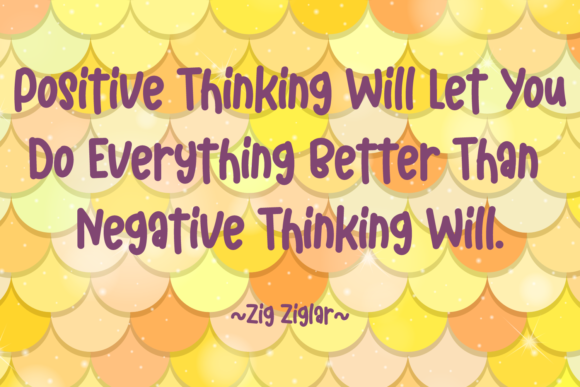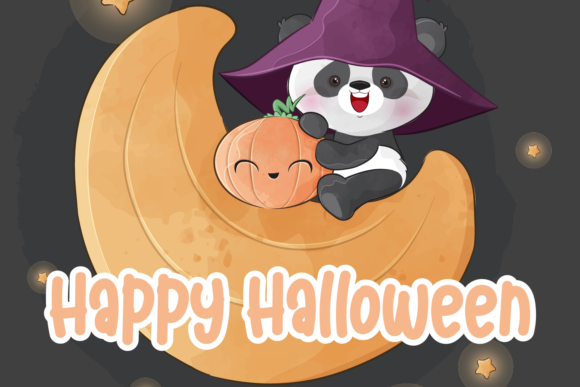
Handmade Font
db-ku.com - Script & Handwritten -- Handmade is a relaxed and fun handwritten font. Whatever the topic, this font will be a wonderful asset to your font library, as it has the potential to enhance any creation.